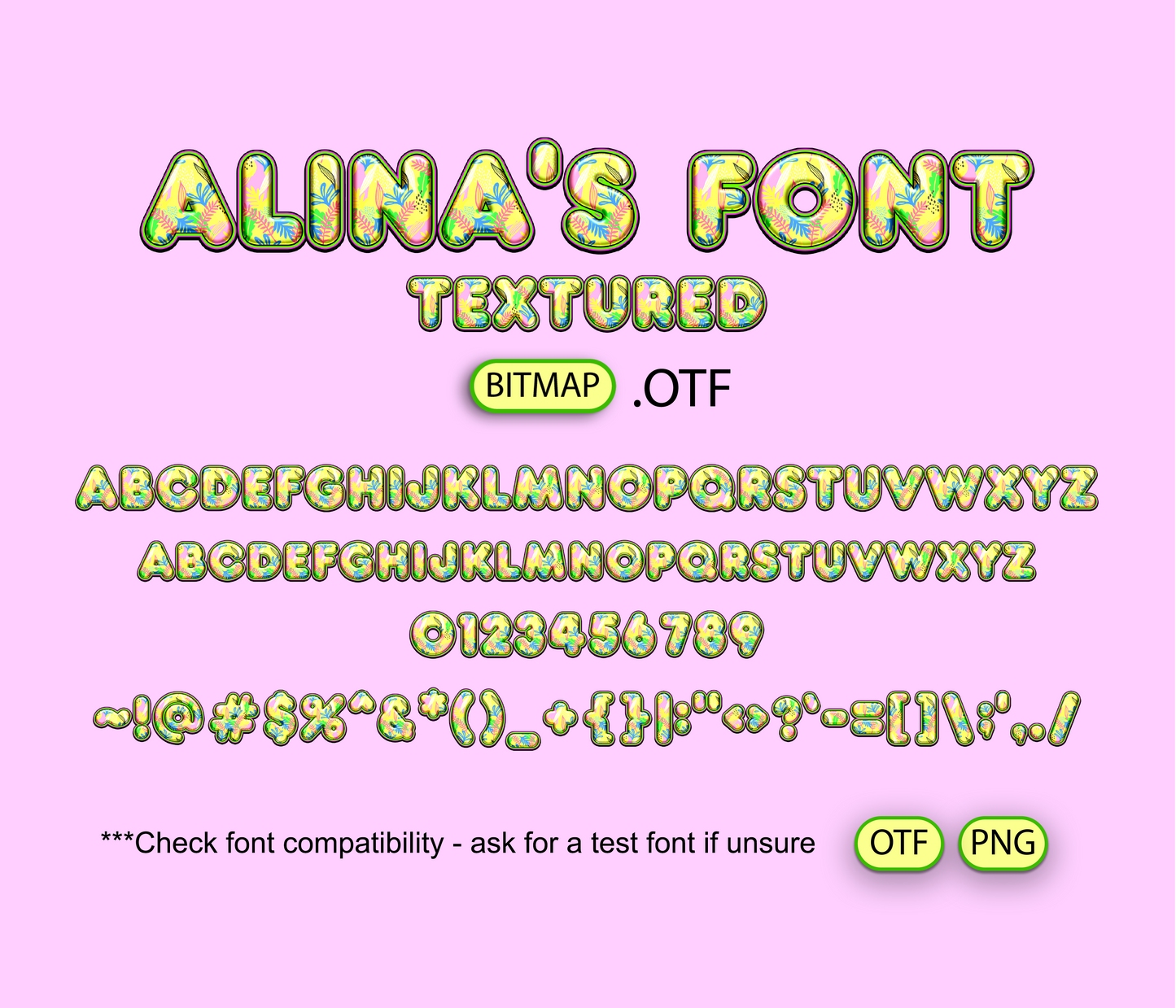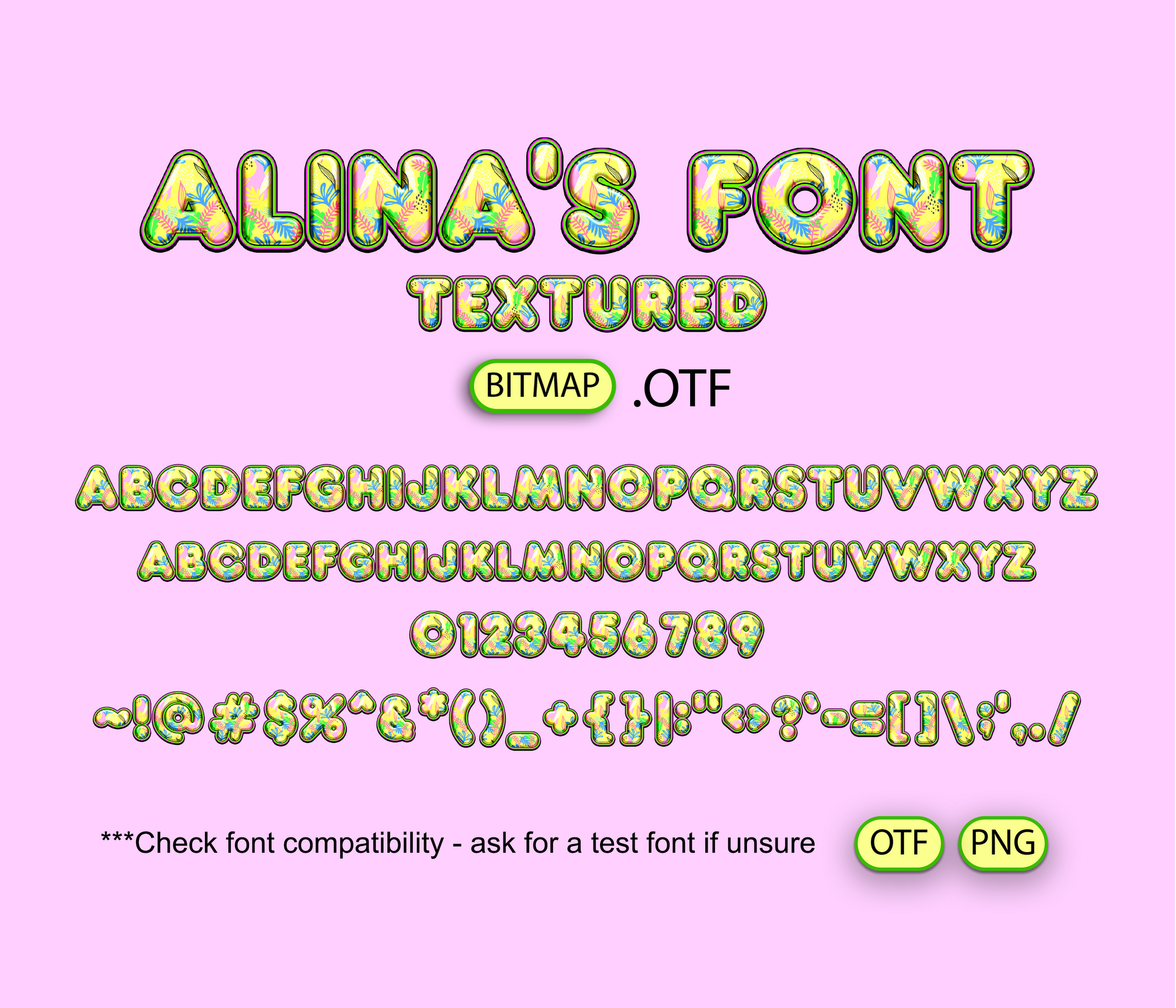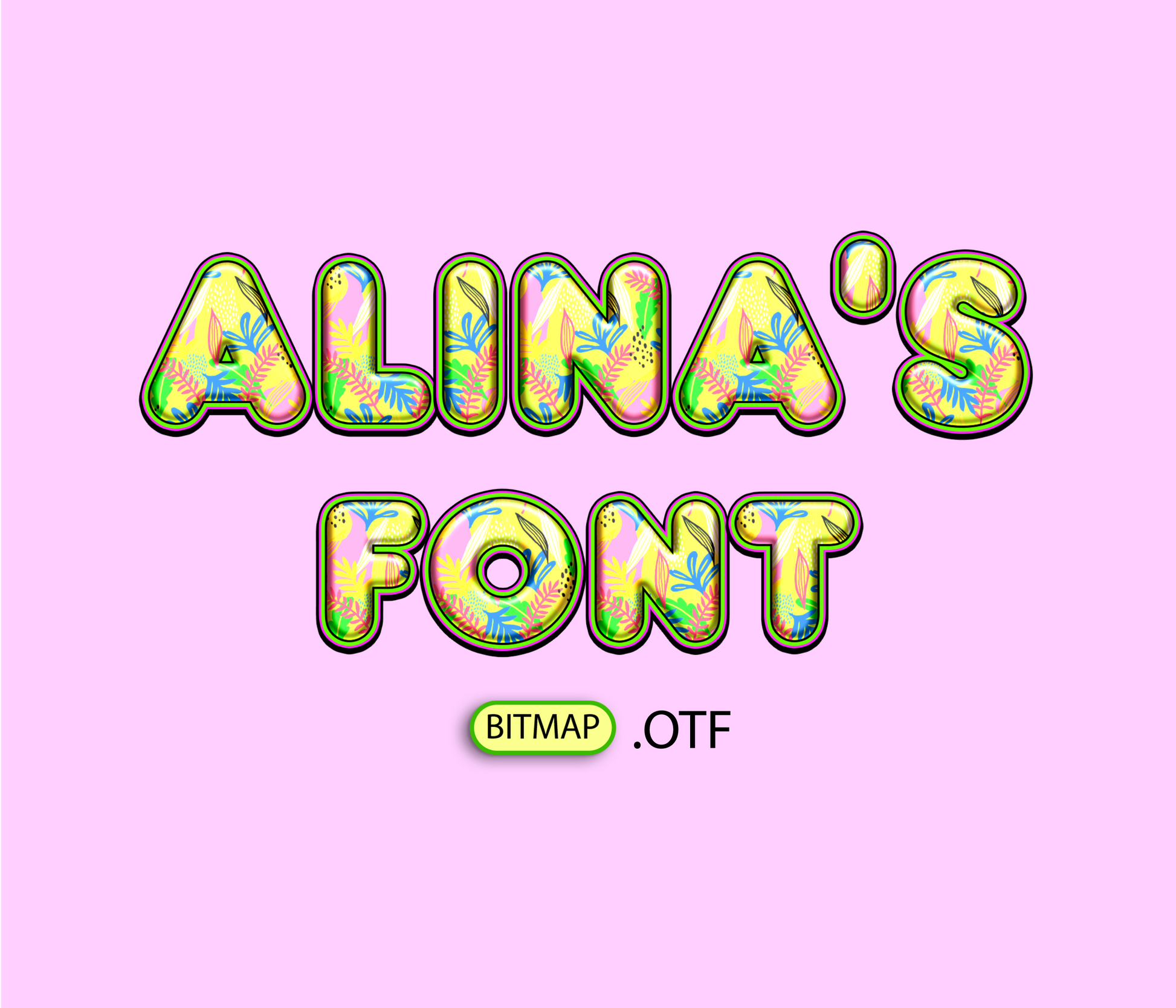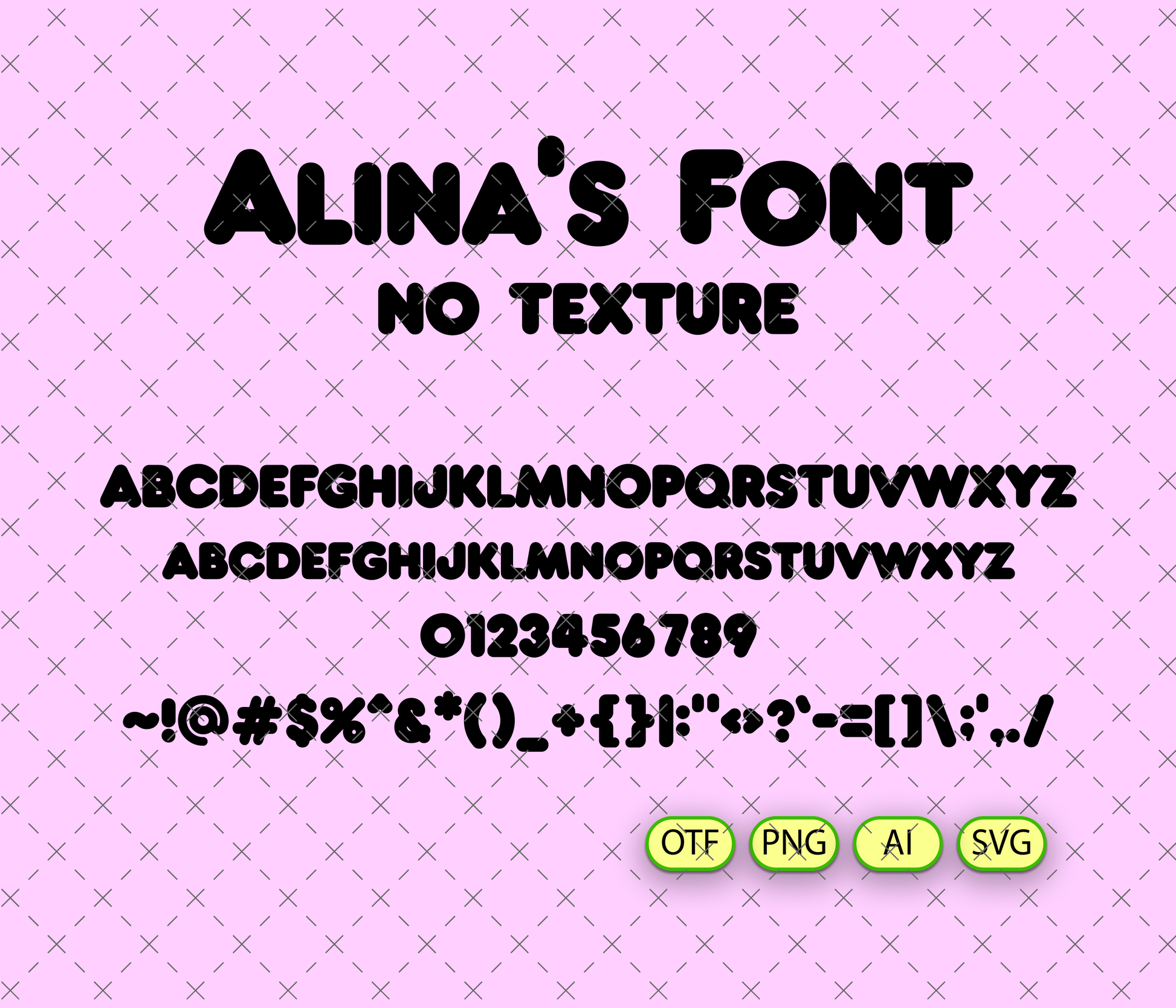
Exotic Pattern Font
Exotic Font Textured
Venture into the breathtaking territory of faraway tropical wonder with our Exotic Font Textured, capturing the essence of jungle-carved lettering brilliance and sun-drenched paradise graphic mystique. Perfect for travel enthusiasts, themed event planners, content creators, and creative professionals, this font brings the bold, timeless spirit of untamed wilderness stories to your projects. Create eye-catching invitations, merchandise, or digital content with the dramatic energy of lush tropical expedition narratives.
Vibrant Typography for Tropical Design & Creative Projects
Our Exotic Font Textured features lush, boldly sculpted letterforms with sun-baked natural textures reflecting the world of faraway island escapes and untouched rainforest canopy settings.
- Event Promotions: Craft captivating invitations, posters, and banners for tropical themed parties, travel festivals, and gatherings that embody the spirit of exotic wilderness adventure entertainment
- Merchandise Design: Sensational for t-shirts, posters, stickers, and accessories that radiate the vibrant aesthetic of faraway paradise culture themes
- Digital Media: Transport websites, blogs, and social media to sun-soaked new horizons with lush headers and graphics that breathe the wonder of untamed tropical destinations
- Creative Content: Weave genuine wilderness charm into travel artwork, editorial designs, and creative projects inspired by thrilling jungle expedition tales
- Personal Projects: Ignite tropical energy throughout scrapbooking, DIY crafts, and home decor inspired by the world of legendary exotic island characters
Effortless Integration and Tropical Features
Exotic Font Generator
Many seek an online font generator to imitate the appearance of the Exotic Font. Do not be misled! No generator can capture the untamed authenticity of our font, which comes in a clean outline version perfect for cutting machines.
Our font celebrates the world of faraway tropical stories and untamed wilderness discovery, empowering your projects with its bold and timeless spirit. Whether crafting promotional materials, designing themed products, or adding an exotic touch to personal projects, this font communicates the vibrant essence of tropical paradise entertainment. Ready to unleash exotic mystique into your creations? This font is your most adventurous companion for eye-catching, impactful design.